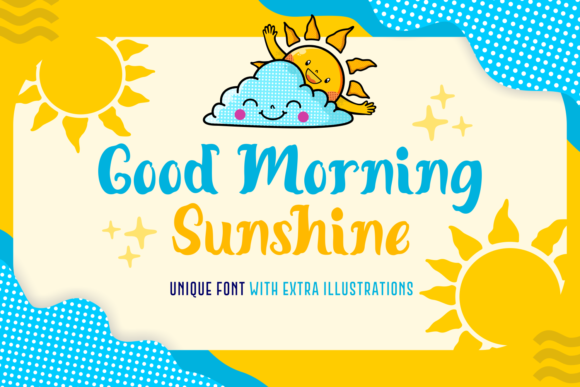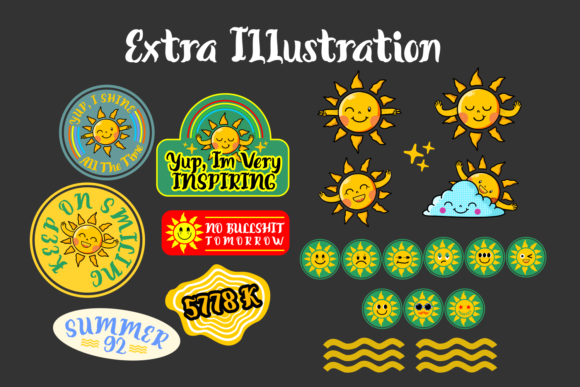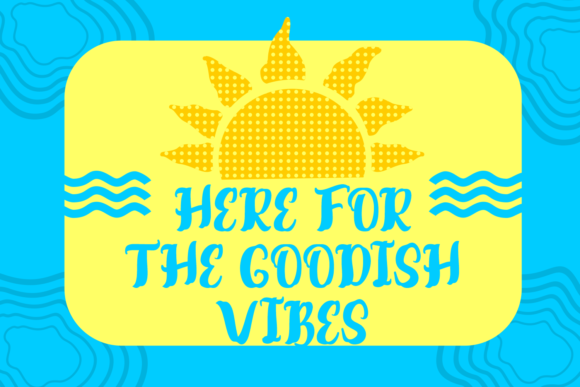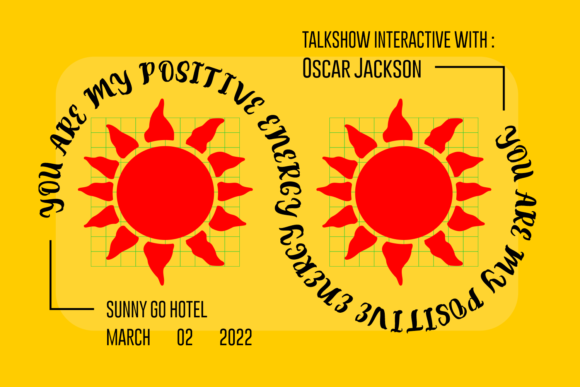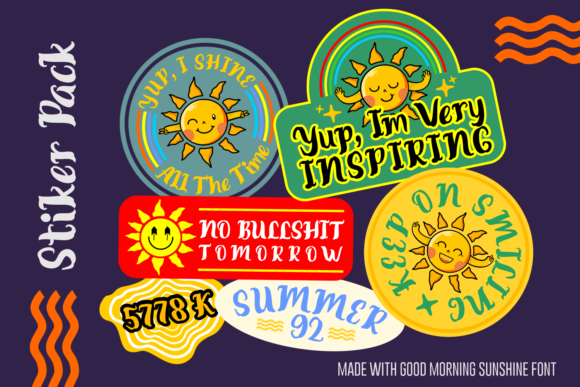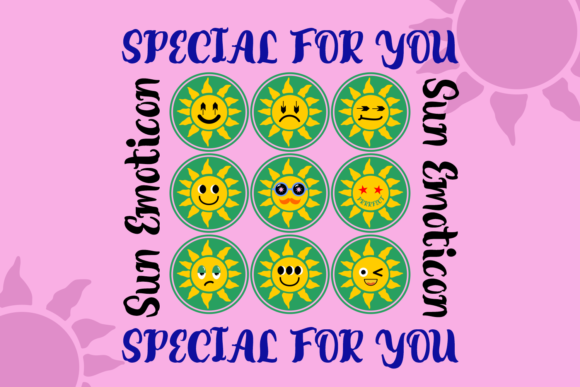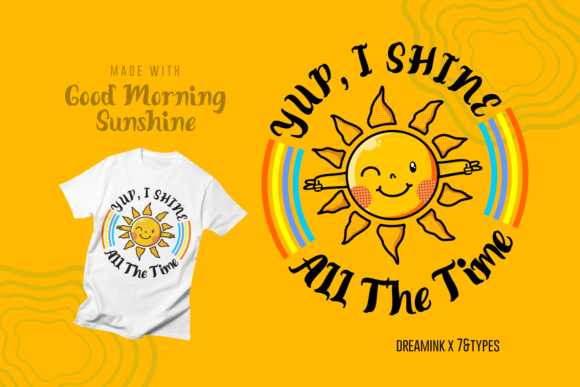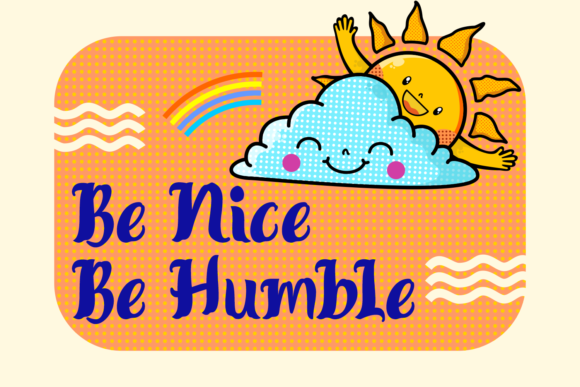
Good Morning Sunshine Font
About Good Morning Sunshine Font
Good Morning Sunshine is a playful handwritten font ready to be used in your next designs.
This font can be used in a wide variety of applications from logos,book covers, comics and more, the only limit is your imagination!